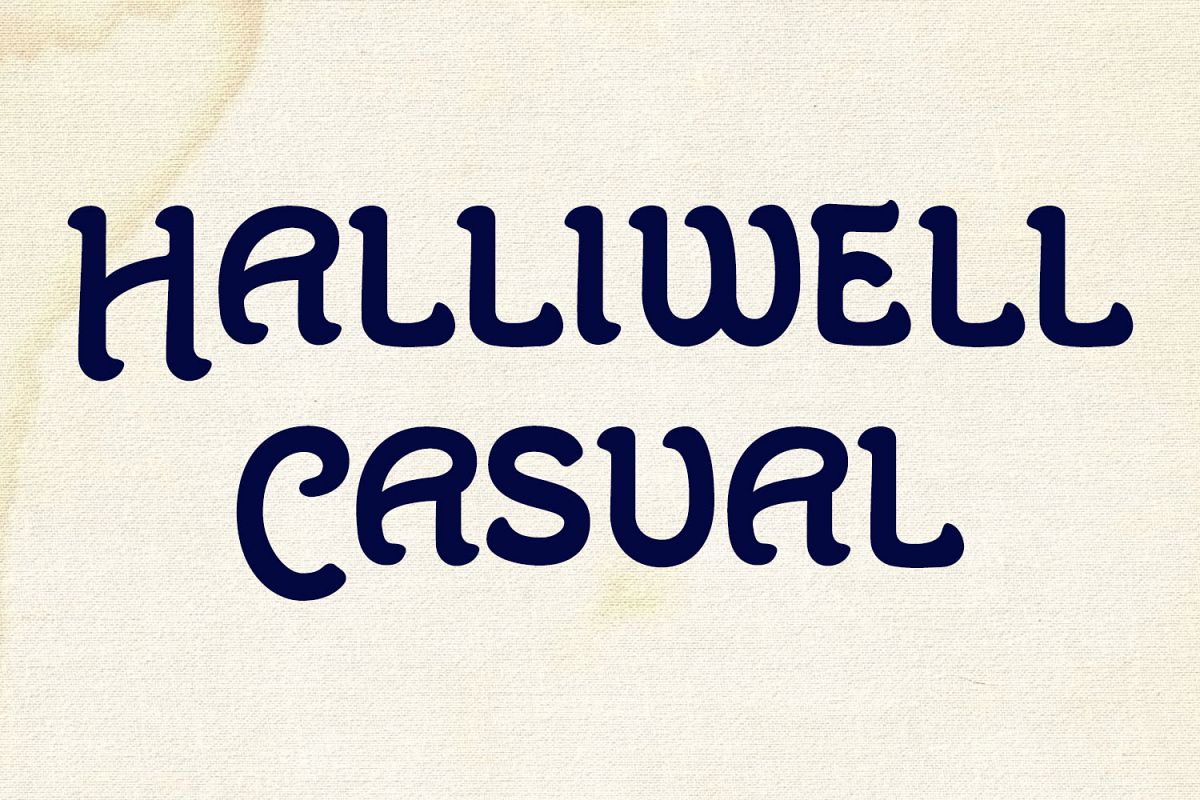
Halliwell Casual
Halliwell Casual is a hand lettered all capitals script, combining charm and character with legibility.Ideal for poster work and eye-catching banners. Try a little casual and timeless elegance.